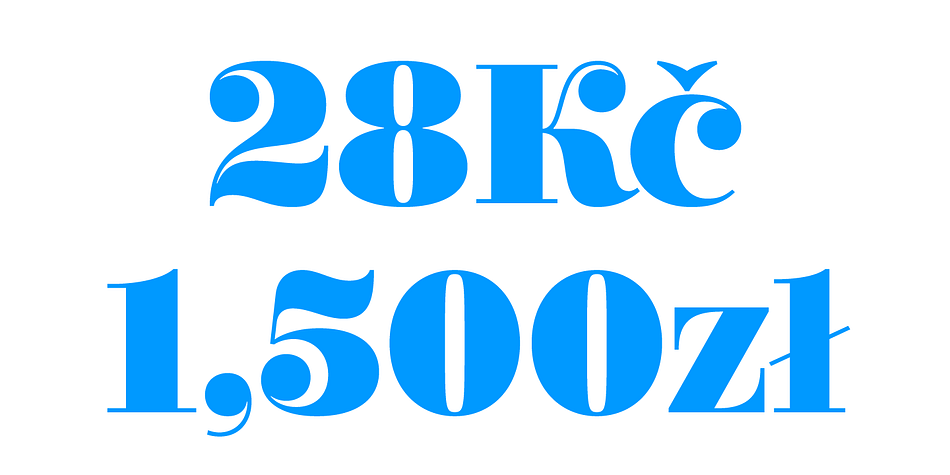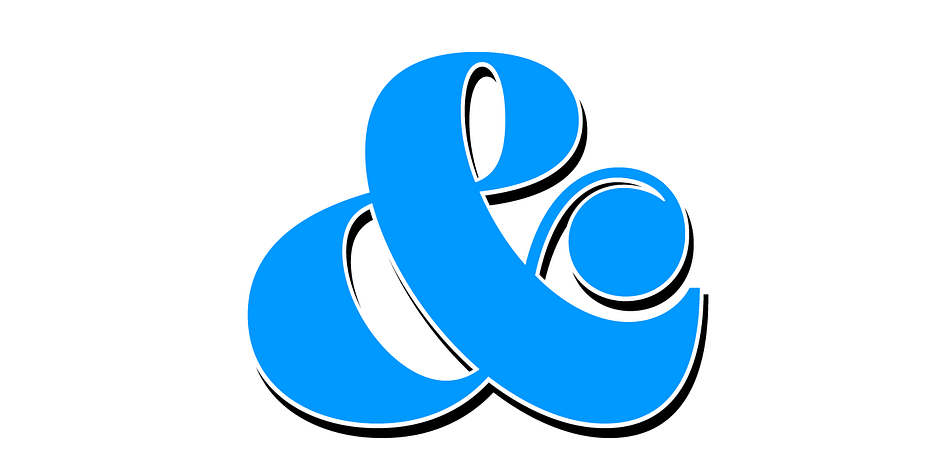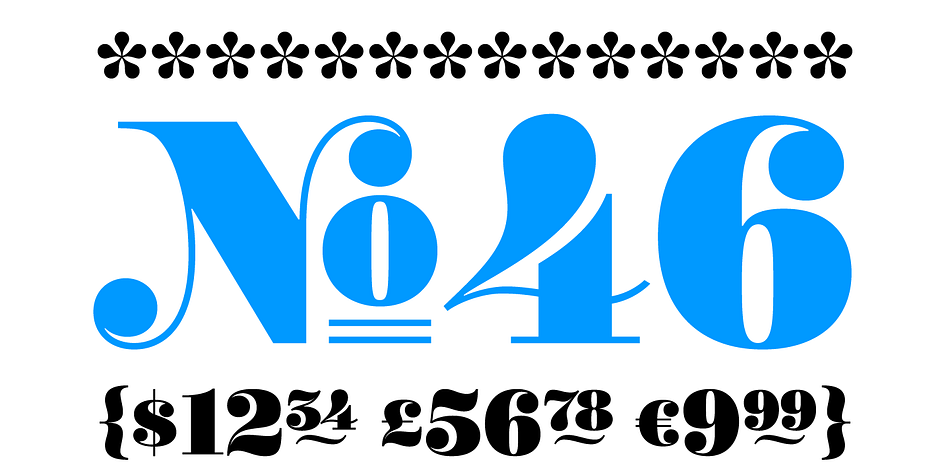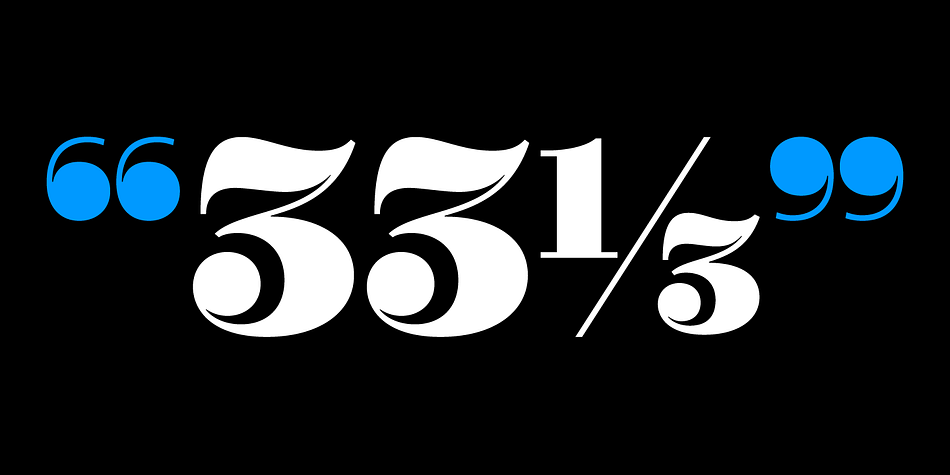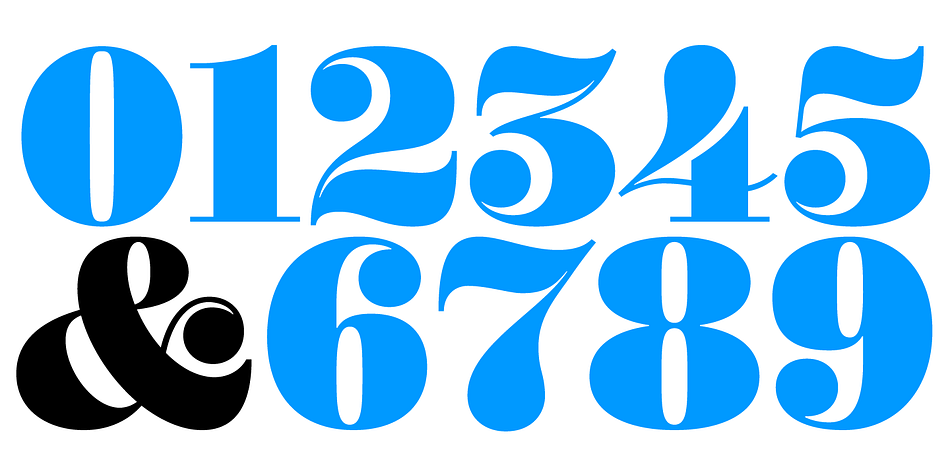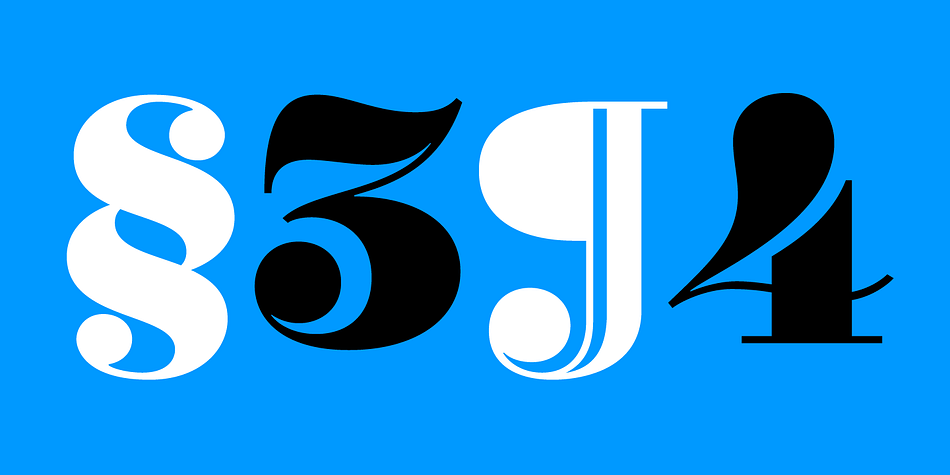
Price Didone
Price Didone is a dingbat and novelty font published by Schizotype Fonts.
Price Didone is a font with a singular purpose: The setting of elegant, stylish price tags.
As such it is non-alphabetic, featuring instead numerals, a large array of currency symbols, and a smattering of typographic niceties such as quotes, brackets, pilcrow, daggers and a very sexy ampersand.
Certain currency symbols that are not independent glyphs (Q, Ft, kr etc.) are included as their constituent letters, some of which also have automatic ligatures for that little something extra.
There are currency symbols included which have not (yet) been accepted to unicode, such as the Russian Ruble and Bitcoin symbols.
For ease of access, these can be typed using the standard ligatures feature.
Automatic Fractions - with fractions feature engaged, arbitrary fractions are a doddle.
Price Didone is a font with a singular purpose: The setting of elegant, stylish price tags. As such it is non-alphabetic, featuring instead numerals, a large array of currency symbols, and a smattering of typographic niceties such as quotes, brackets, pilcrow, daggers and a very curvaceous ampersand.
Certain currency symbols that are not independent glyphs (Q, Ft, kr etc.) are included as their constituent letters, some of which also have automatic ligatures for that little something extra. There are currency symbols included which have not (yet) been accepted to unicode, such as the Russian Ruble and Bitcoin symbols. For ease of access, these can be typed using the standard ligatures feature. See features below for the full list.
Automatic Fractions - with fractions feature engaged, arbitrary fractions are a doddle.
Stylistic Sets:
SS01 - an alternate look for 4
SS02 - a double stroked dollar symbol
SS03- the # sign becomes a stylish numero
Stylistic Alternates - for software that doesn’t support stylistic sets, the above three features are grouped into the one SALT feature.
Standard Ligatures - certain typed combinations automatically change to different glyphs:
B|| = Bitcoin symbol
P- = Russian Ruble
RM = Malaysian Rimgit symbol
Rp = Indonesian Rupiah
Rs = Rupees
Ft = Hungarian Forint
kr = Kroner symbol
% off;%off;? = Special percent off ligature
Discretionary Ligatures - this feature sets decimal prices like $5.95 with the numerals after the period smaller and raised from the baseline, underlined by a nice swoosh. It also shrinks the dollar, sterling, and Euro symbols for a more authentic look.
While intended for one sole purpose, Price Didone could nevertheless be quite versatile. Quote marks and typographic symbols can be used for decoration. Everybody loves a nice ampersand and this is one I’m really proud of. Or you might just want some pretty numbers for your house, or sports jersey, or just to stand out a little from the rest of your text. Whatever use you may have in mind, go for it. And do let me know if your currency symbol isn’t included, and I’ll quickly add it to the glyph set in future versions.